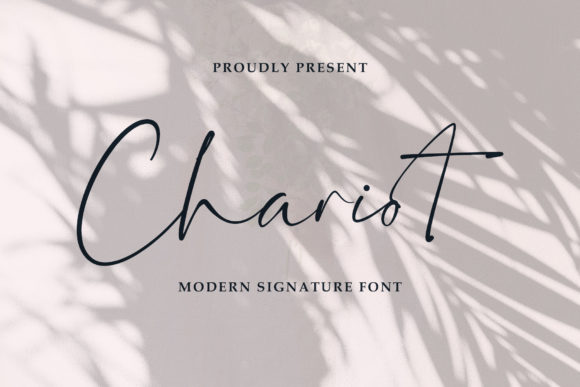
Introducing Chariot Font: Elevate Your Designs with a Unique Script Font
Are you tired of using the same old fonts for your designs? Look no further! Chariot Font is here to revolutionize your creative projects with its neat and unique script style. This versatile font is perfect for designers, crafters, and anyone looking to add a touch of elegance and personality to their work.
What Makes Chariot Font Special?
Chariot Font is a script font that boasts a distinctive and eye-catching design. Its unique lettering style makes it stand out from more traditional fonts, allowing you to create stunning logos, branding materials, invitations, posters, and more. Whether you’re working on a personal project or a client’s, Chariot Font is sure to make it come alive!
One of the best things about Chariot Font is its versatility. It’s suitable for a wide range of design projects, including:
- Logos: Create a memorable and impactful logo for your brand or business.
- Branding: Develop a consistent visual identity across all your marketing materials.
- Invitations: Design beautiful and elegant invitations for weddings, parties, and other special events.
- Posters: Create eye-catching posters for advertising, promotions, or events.
- Apparel: Add a touch of personality to your t-shirts, hoodies, and other clothing items.
- Layout design: Use Chariot Font to add visual interest to your brochures, flyers, and other marketing materials.
- Taglines: Create catchy and memorable taglines that capture the essence of your brand or product.
Why Choose Chariot Font?
So, why should you choose Chariot Font for your design projects? Here are just a few reasons:
- Unique design: Chariot Font has a distinctive and eye-catching design that will set your work apart from the rest.
- Versatility: This font is suitable for a wide range of design projects, from logos and branding to invitations and posters.
- Elegance: Chariot Font adds a touch of elegance and sophistication to any design project.
Tips for Using Chariot Font
Here are a few tips for getting the most out of Chariot Font:
- Experiment with different sizes: Chariot Font looks great in a variety of sizes, from small and delicate to large and bold.
- Play with colors: This font looks great in a range of colors, from bold and bright to soft and pastel.
- Mix and match: Try pairing Chariot Font with other fonts to create a unique and eye-catching design.
Whether you’re a seasoned designer or just starting out, Chariot Font is a great addition to your font library. Its ease of use and flexibility make it perfect for a wide range of design projects, from logos and branding to invitations and posters. So go ahead, get creative, and see what amazing designs you can create with Chariot Font!